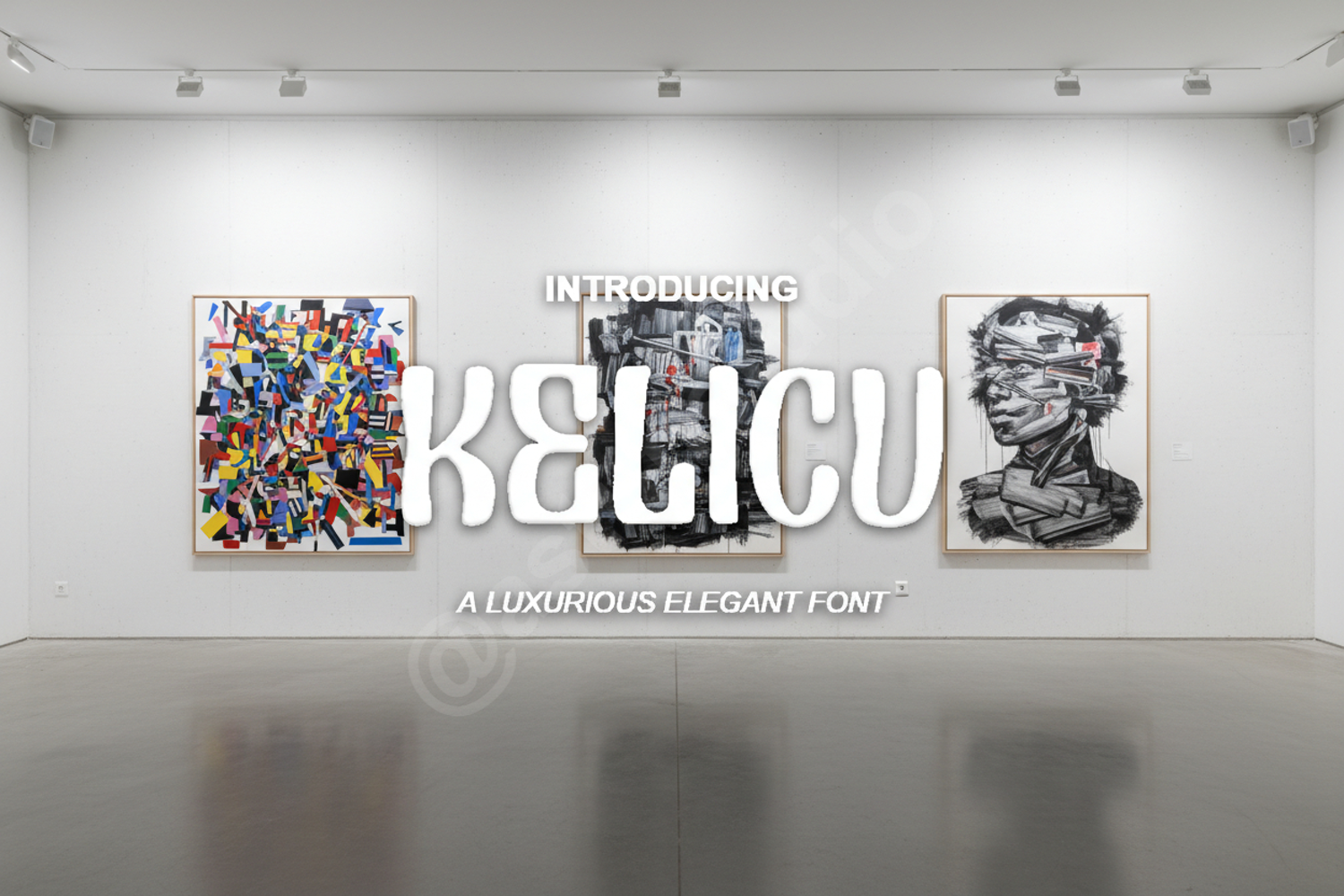
Kelicu - Modern & Elegant Display Serif Font
Kelicu
Kelicu is a premium display serif font that blends classic elegance with modern sophistication. Meticulously crafted to provide a clean and high-end aesthetic, Kelicu is the perfect choice for designers seeking a balance between timeless style and contemporary flair. Its unique character shapes and balanced proportions ensure your designs stand out with professional clarity and visual appeal.
- Full Character Set (Uppercase and Lowercase)
- Numerals and Punctuation
- Extensive Multilingual Support
Kelicu is highly versatile and performs exceptionally well across various creative projects, including:
- Professional Branding and Visual Identity
- High-end Logo Design
- Elegant Wedding Invitations and Stationery
- Editorial Layouts and Magazine Headers
- Luxury Product Packaging
- Stylish Social Media Graphics
- Modern Website Typography